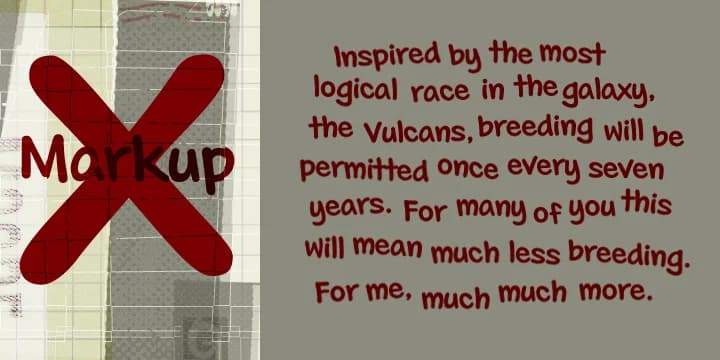
About Markup Font
Markup is a decorative font designed by Philatype. Markup is a premium font β see the listing for pricing and license terms. Decorative fonts like Markup work best for logos, posters, packaging, and standout headlines.
Markup Font is a decorative font that shines as a display or heading face. Pair it with a clean sans-serif or serif font for body text β the contrast creates a clear hierarchy while the two styles stay balanced and easy to read.
Markup Font
Markup Font is a decorative typeface by Philatype, ideal for logos, invitations, branding, and creative projects.